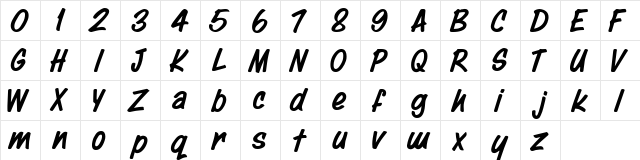
RemcoPaint XPDF Regular Font Preview
RemcoPaint XPDF Regular
RemcoPaint XPDF Regular Font Details
Design Context for RemcoPaint XPDF Typeface
RemcoPaint XPDF is a composed and adaptable typeface that performs quietly and consistently across a wide range of design contexts.